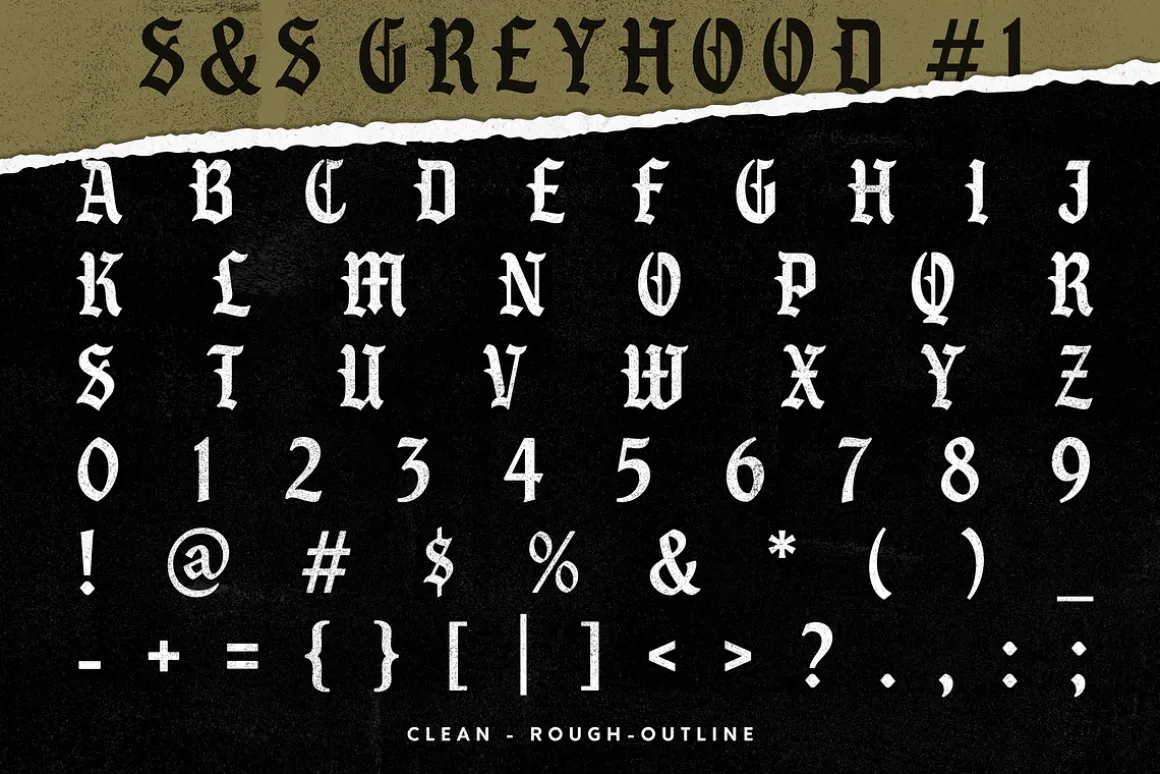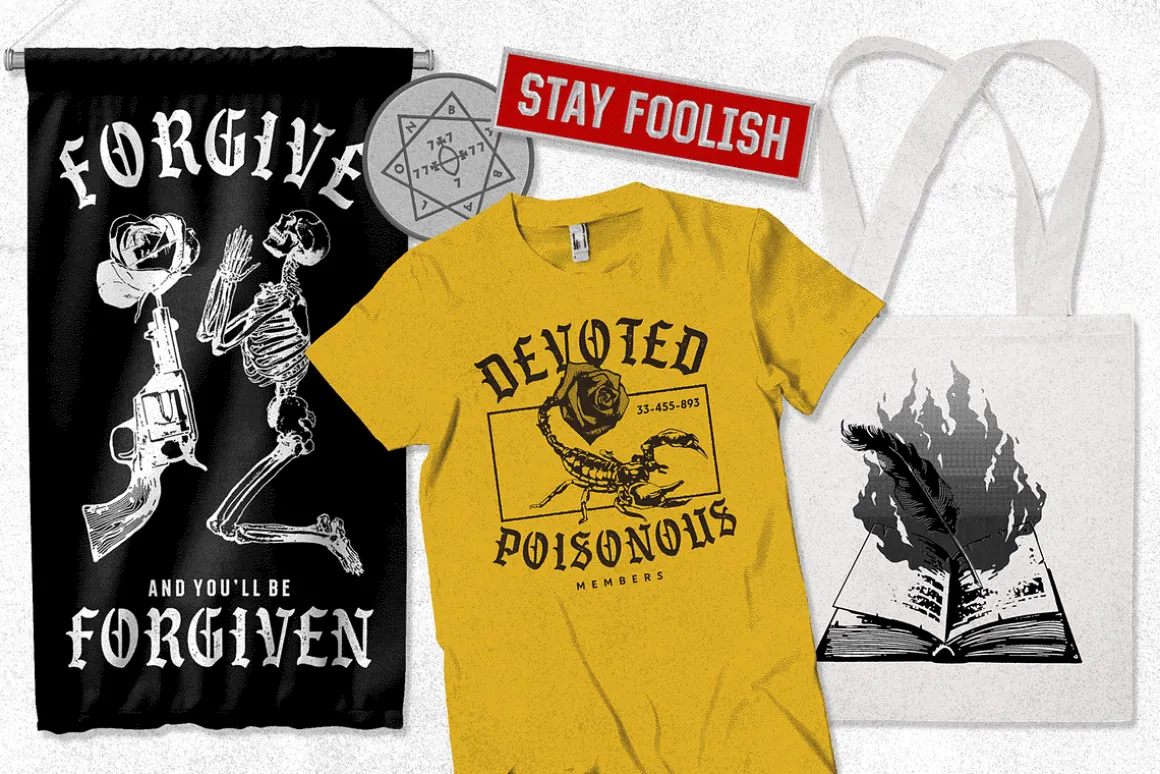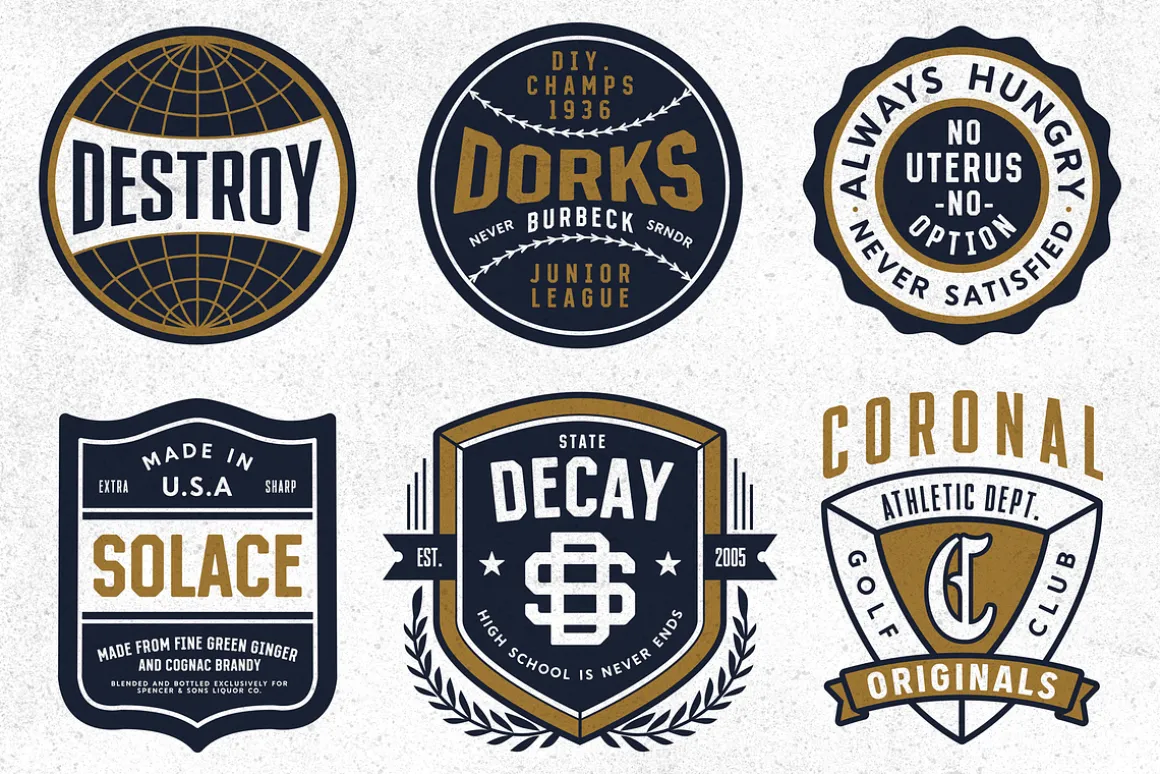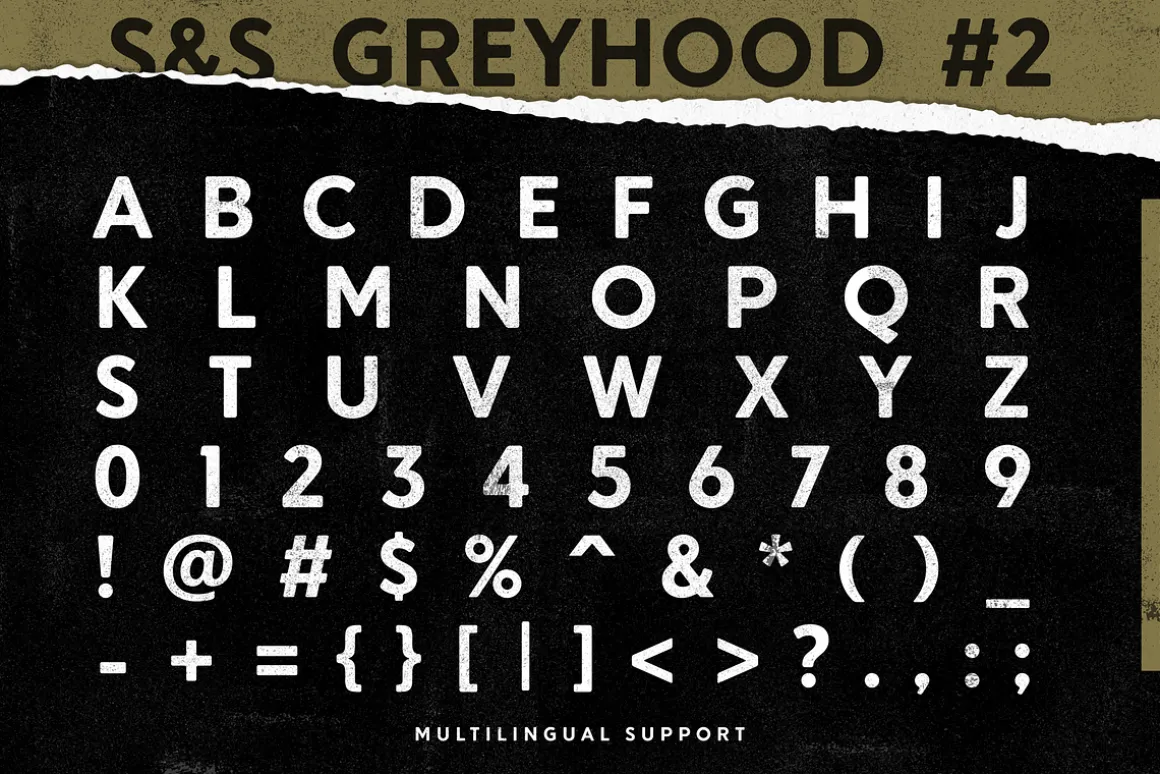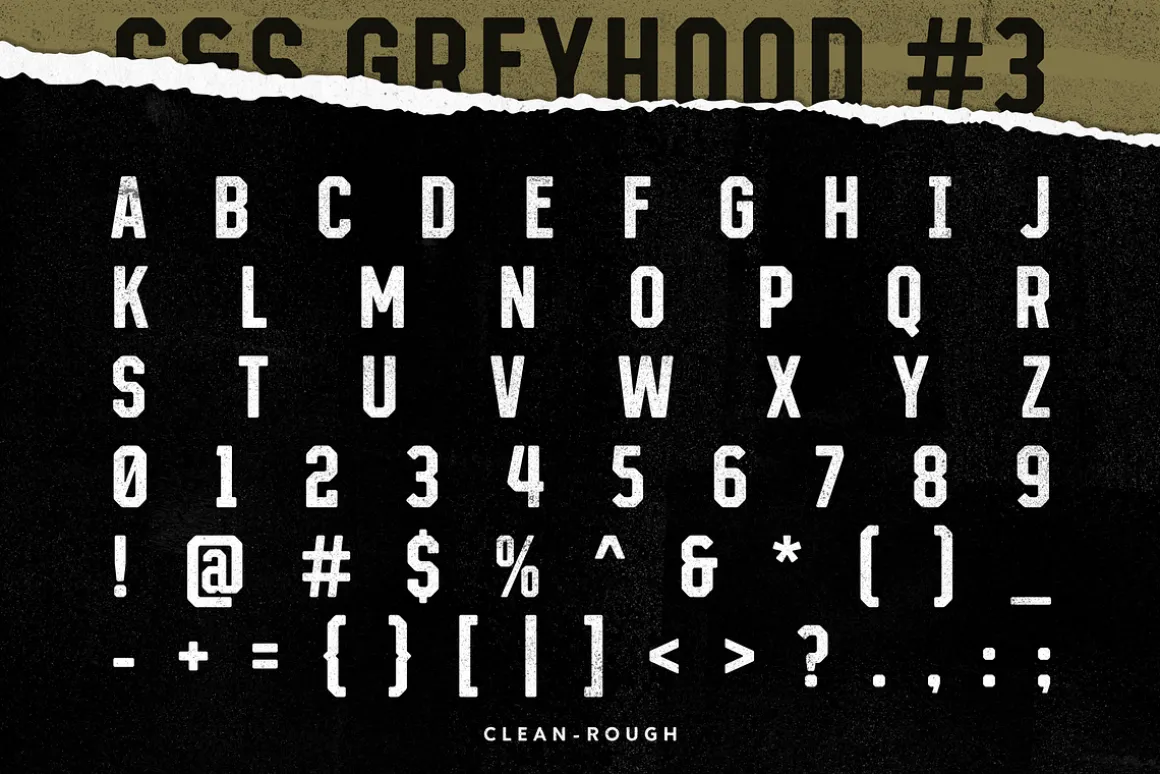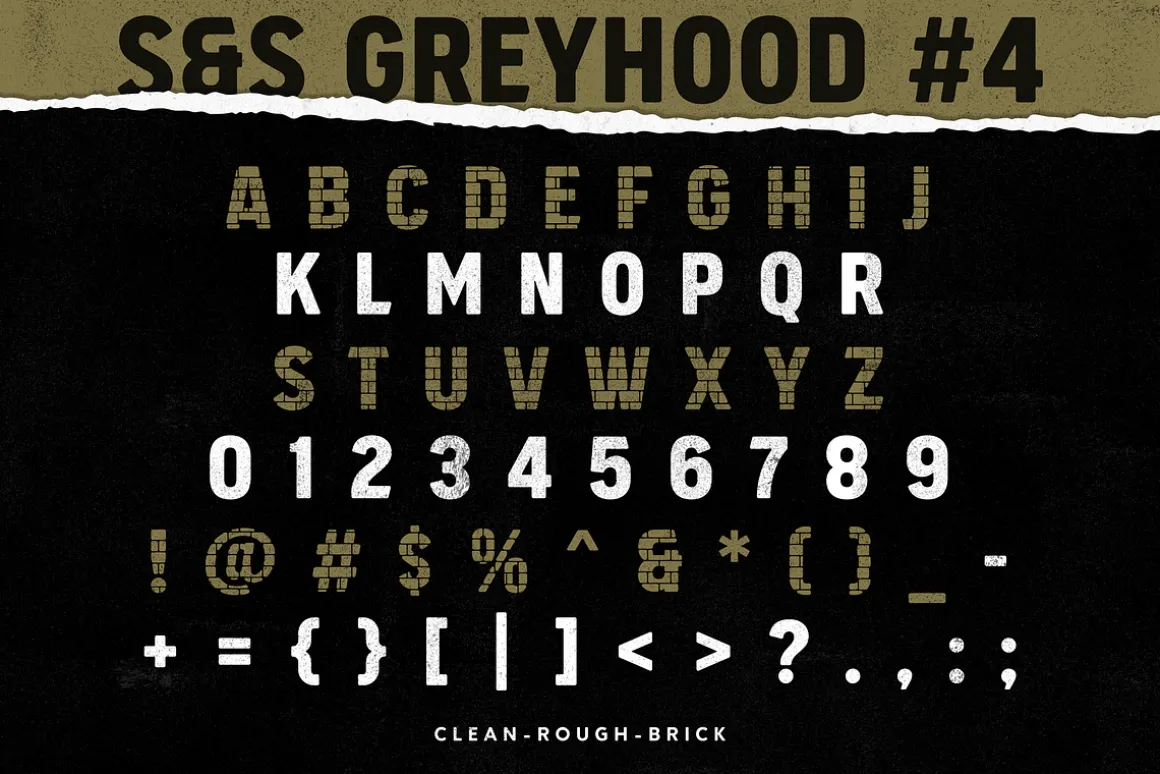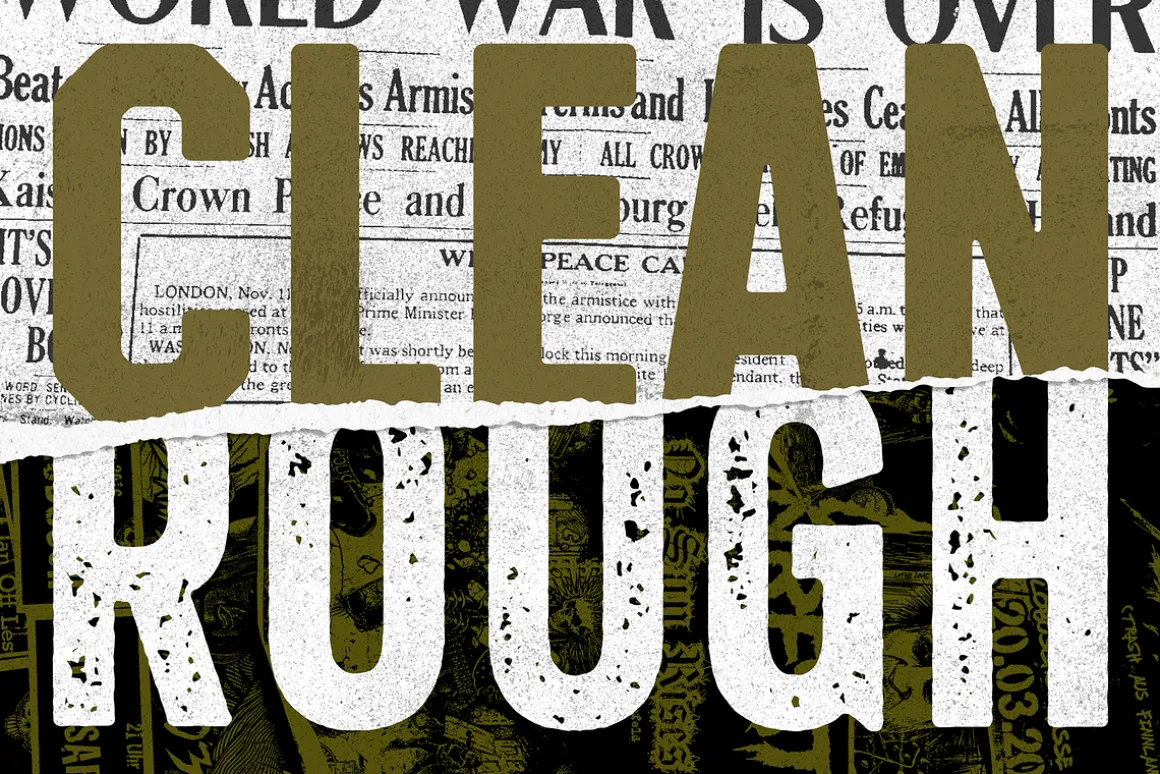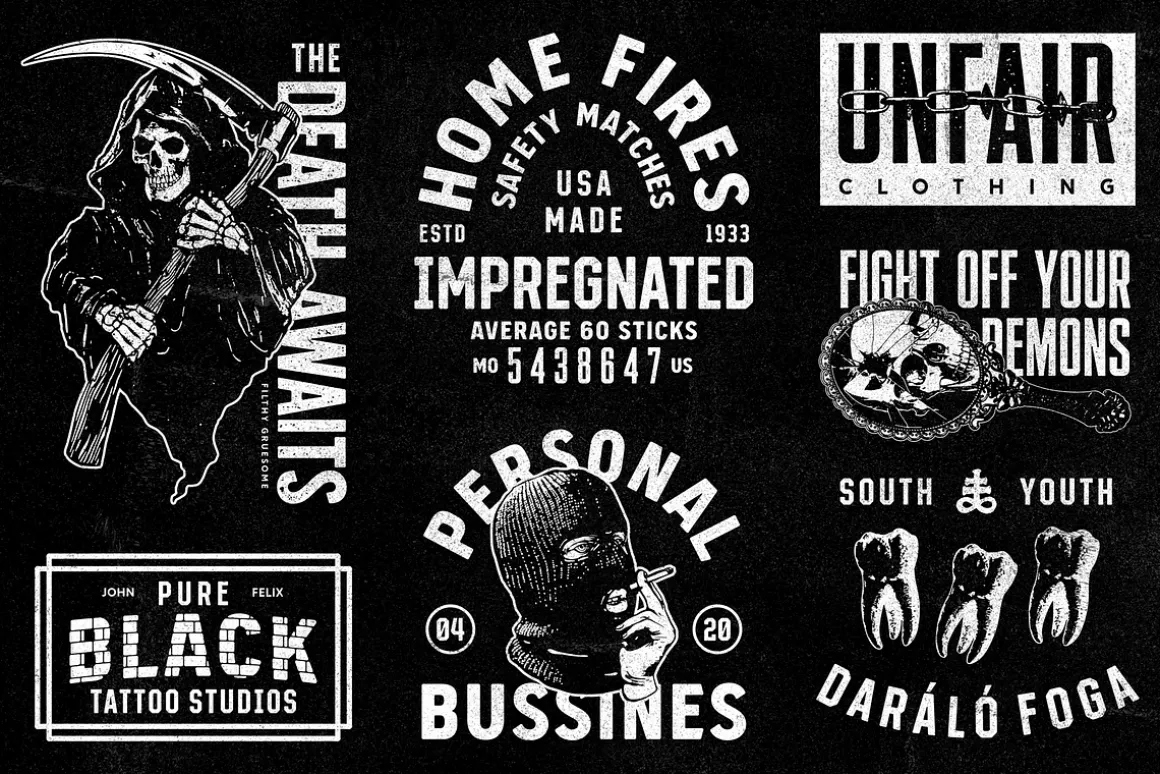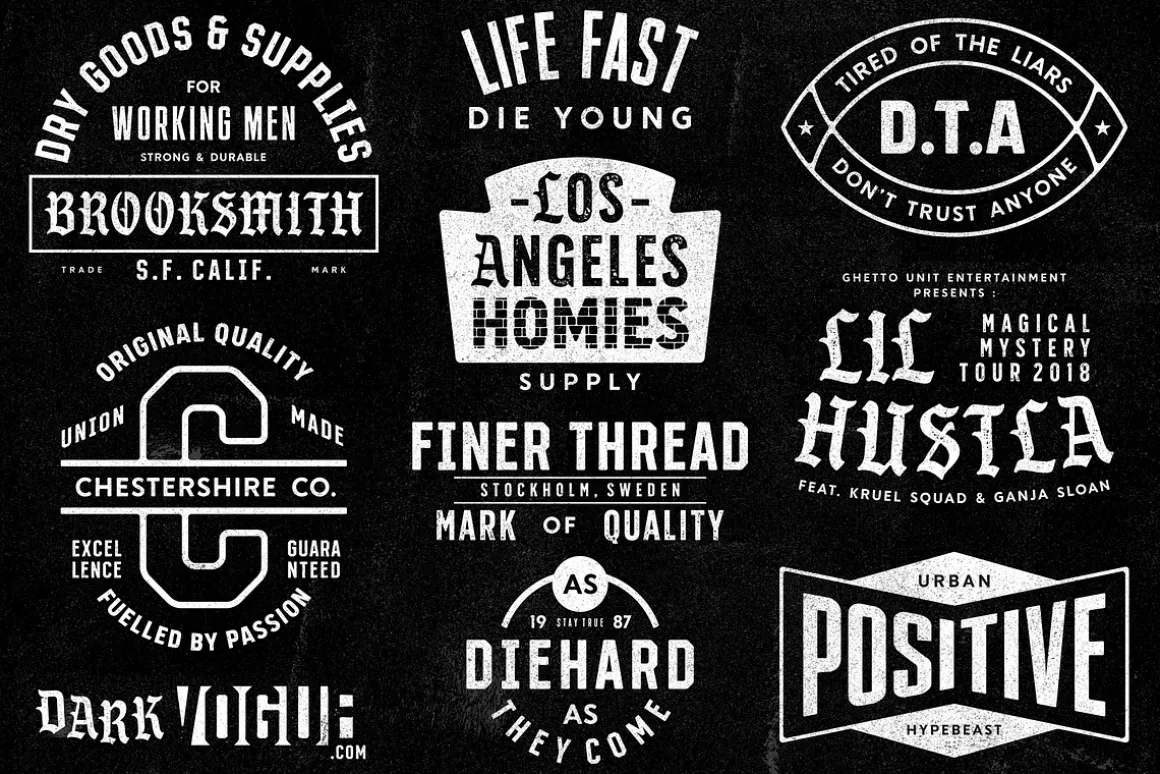
S&S GreyHood Font Family
Greyhood Font Family inspired by the occult cultural symbol, There are many symbolisms and occult references that stand out in the music culture today. From historical artifacts to the music artists today, it seems the occult world has never really gone away, but in fact has become more flagrant and blatant. Available in 13 font. Each typeface has a Textured Version, plus an outlined and brick effect. Each typeface allowing them to pair very well with eachother. and also the extras of highly detailed vector with the ‘low fidelity’ vintage style. perfect for everyone who’d like to add a mystical designs. ideal for gigs poster, band logotype, apparel designs, and many more.
Uppercase
Numerals & Punctuation
Supports 75+ Latin based languages
Suggestion : This font is a terrific toolbox for display purposes